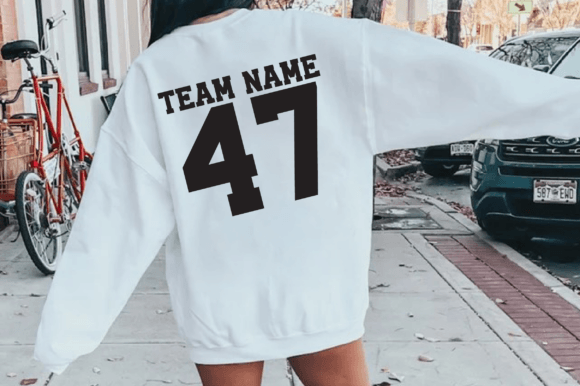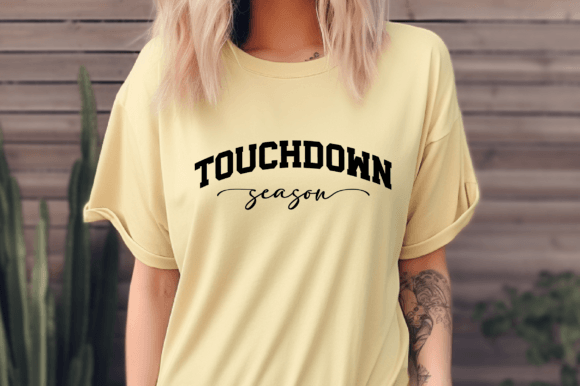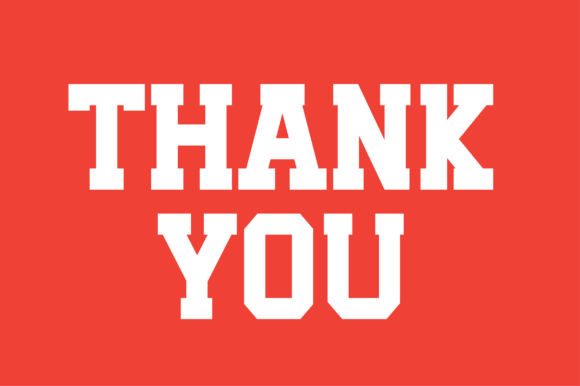
Senior Graduation Font
Senior Graduation is an authentic sports slab serif font inspired by college lettering. Each letter of this font is very bold, making your design look even more powerful. It is suitable for book covers, packaging, jerseys, merchandise, logotypes, and crafting ideas, from cards to branding, invitations, quotes, t-shirts, posters, text effects, logos, and much more. The font is the best choice for your design.